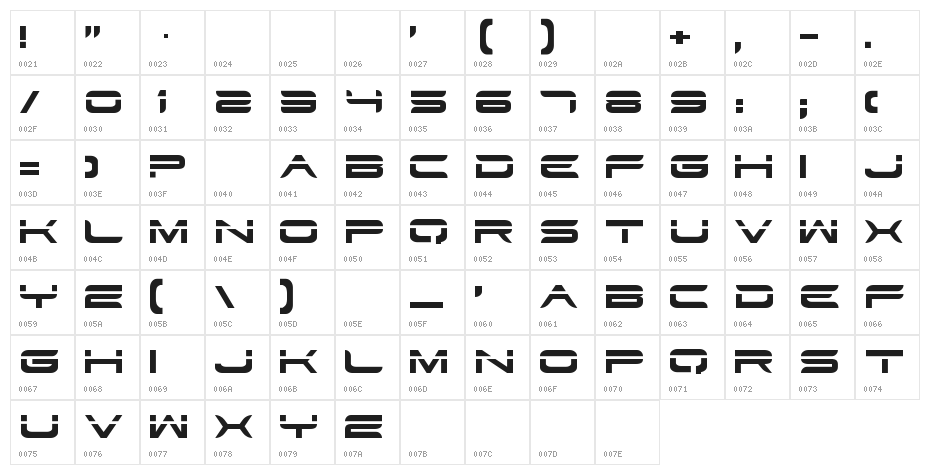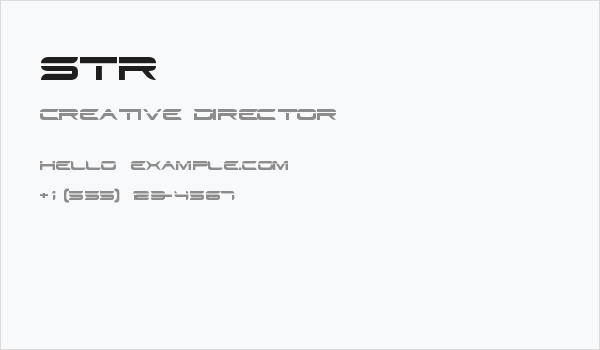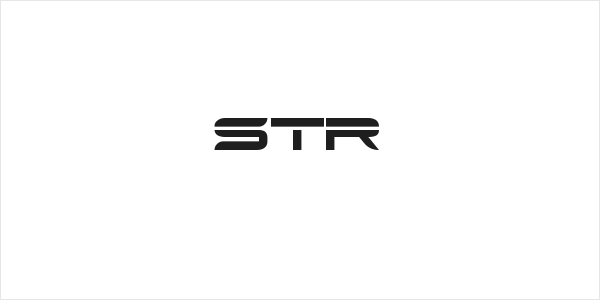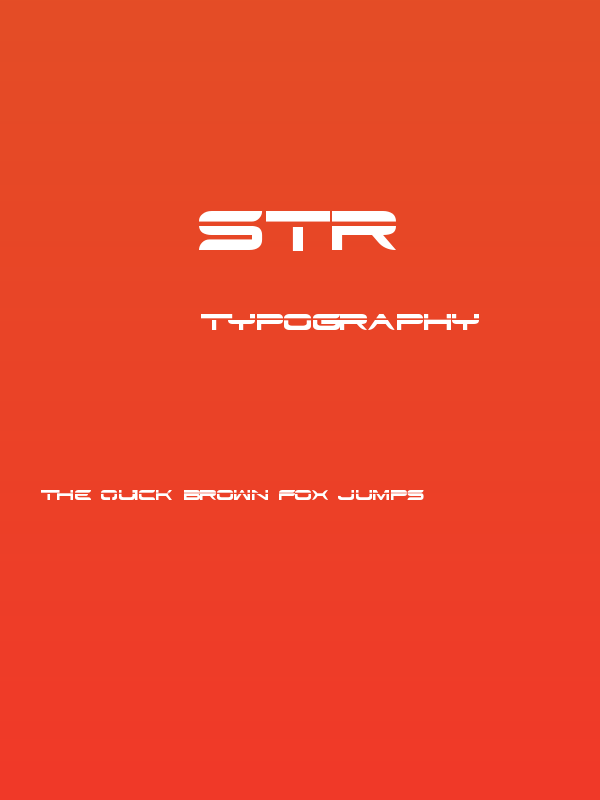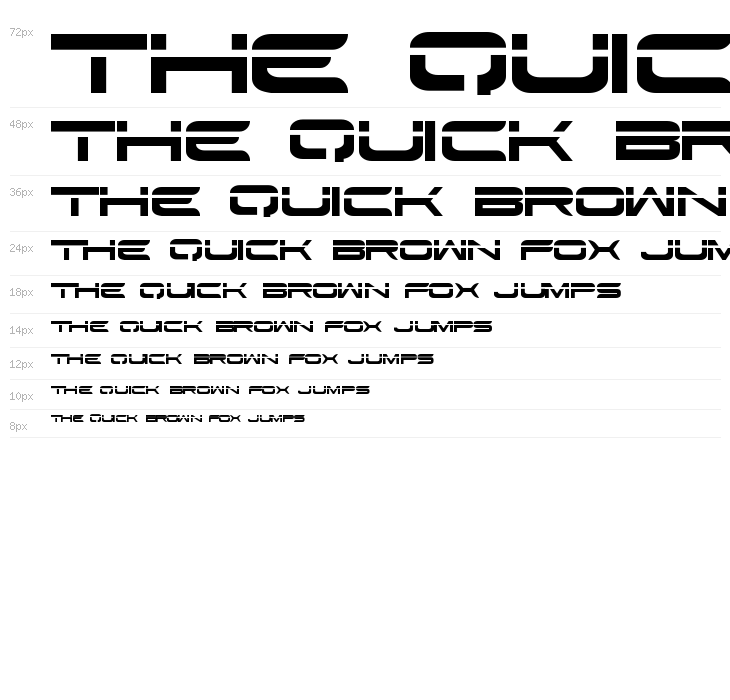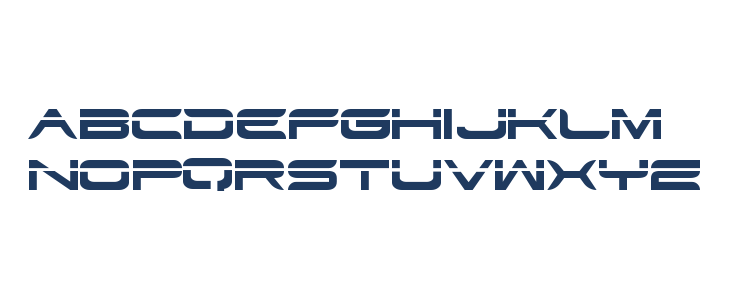
STR Font
STR Description
This font features a futuristic and geometric design, characterized by its sharp angles and clean lines. The uppercase letters are bold and structured, with a distinct mechanical feel. The numbers and special characters follow the same design principles, maintaining consistency throughout. The font's unique style makes it stand out, with a modern and tech-inspired aesthetic that is both eye-catching and versatile.
| Proposed Projects | Ideal for technology branding, sci-fi movie posters, video game titles, and modern advertising campaigns. |